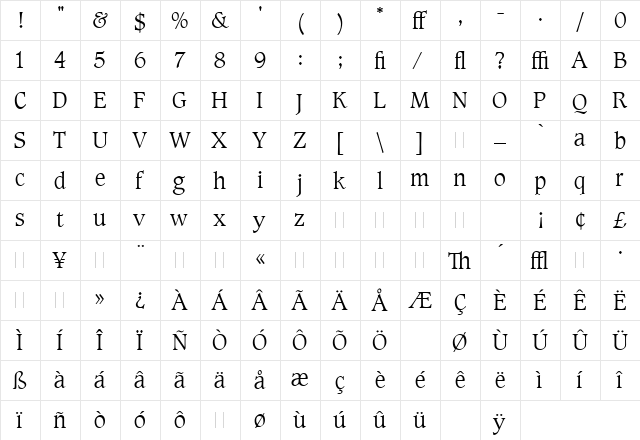
Caxton Roman Light LET Plain
Design Context for Caxton Roman Light LET Typeface
Caxton Roman Light LET takes a measured approach to typography — its balanced proportions and neutral character make it a reliable workhorse for both digital and print work. The delicate stroke weight brings airiness and refinement to layouts.